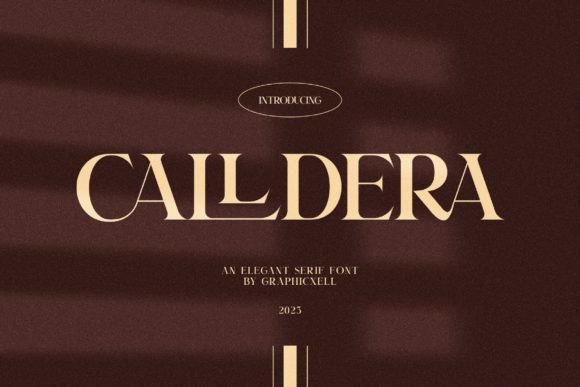
Unveil the Elegance of Calldera: A Serif Font Symphony for Timeless Designs
In a realm where visual aesthetics reign supreme, the choice of font holds immense power in shaping the perception and impact of your creative endeavors. Introducing Calldera, a captivating serif font masterpiece, meticulously crafted to elevate your designs with grace and sophistication.
Calldera, a brainchild of Graphicxell, is a font of rare distinction, embodying a timeless elegance that transcends the boundaries of ordinary typography. With its meticulously crafted curves, delicate serifs, and unwavering attention to detail, Calldera is a testament to the enduring beauty of classic design.
Whether you're a seasoned designer seeking to leave an indelible mark on your projects or an aspiring creative yearning for a font that speaks volumes, Calldera stands as your steadfast companion. Its versatility knows no bounds, seamlessly adapting to a myriad of design concepts, from branding projects that demand a touch of luxury to wedding designs that exude romance and elegance.
Immerse yourself in the world of Calldera and discover a font that is both visually striking and effortlessly readable. Its PUA encoding unlocks a treasure trove of astonishing glyphs and ligatures, empowering you to unleash your creativity and forge designs that captivate and inspire.
With Calldera, you'll find a font that effortlessly harmonizes with your creative vision, imbuing your projects with a sense of timeless sophistication. Step into the realm of design excellence and let Calldera guide you towards creating masterpieces that leave a lasting impression.